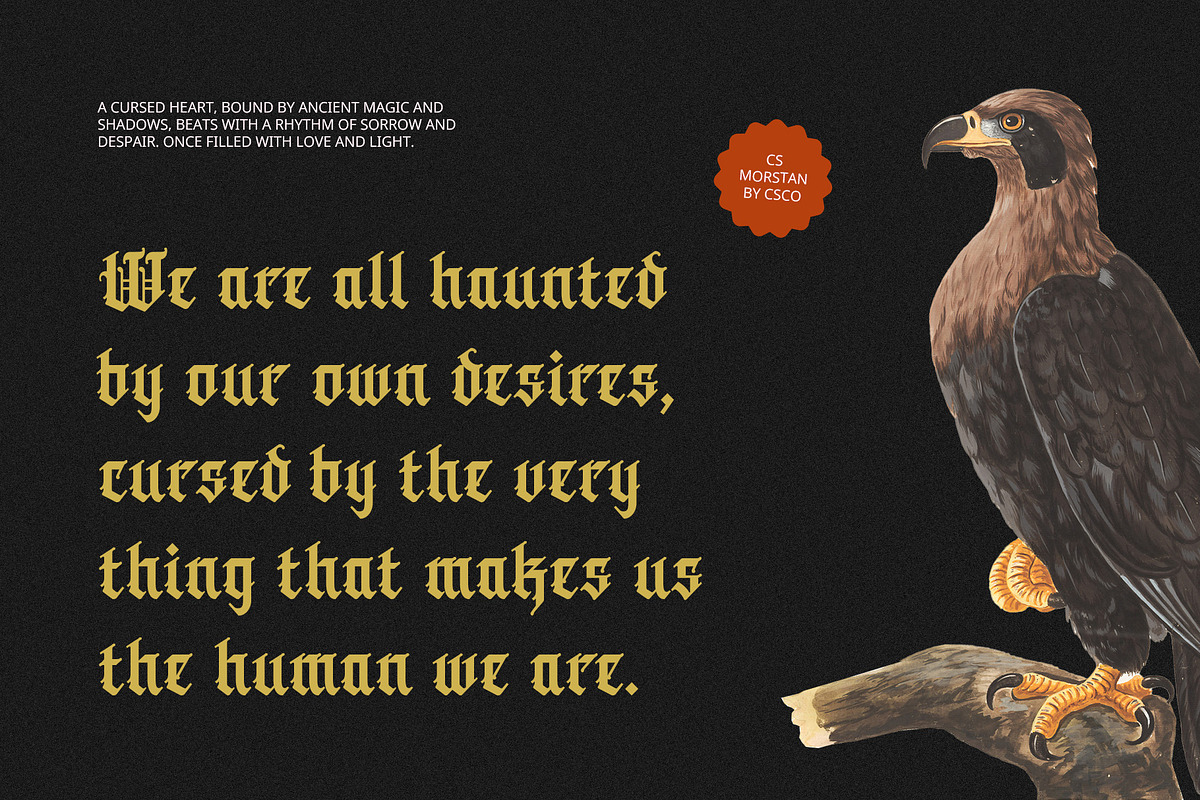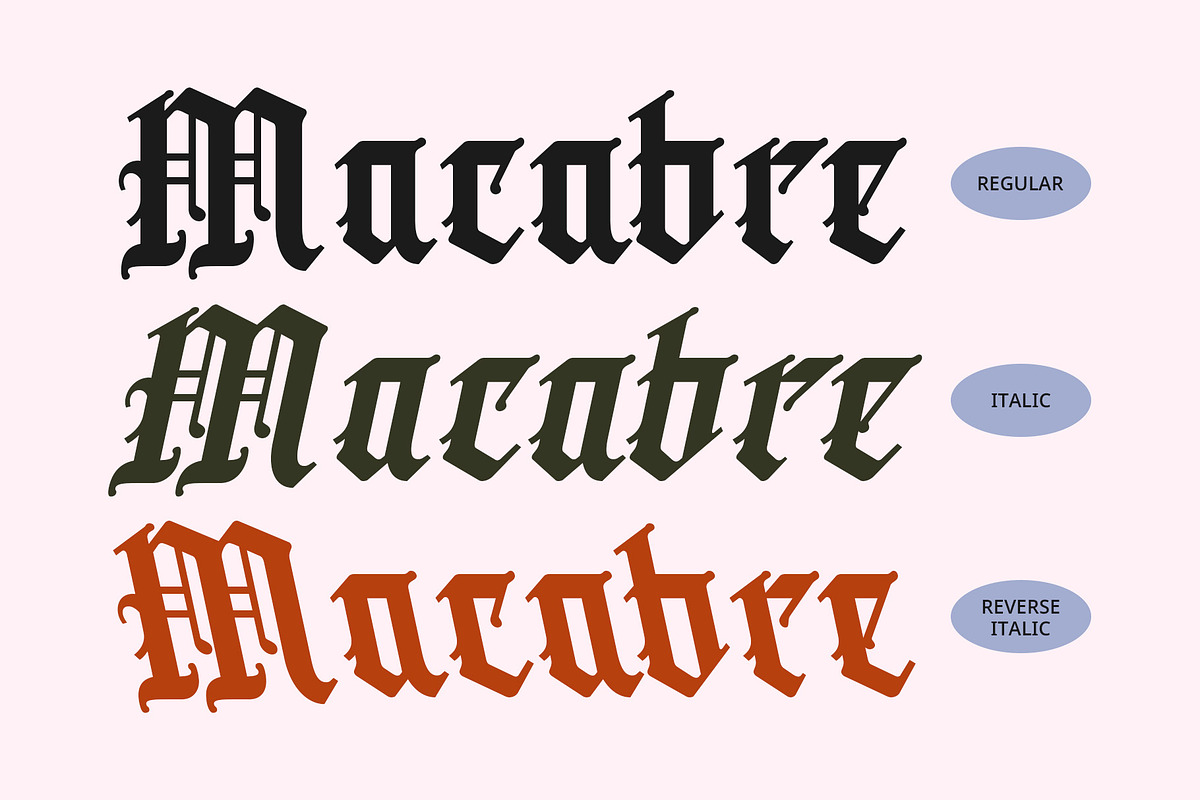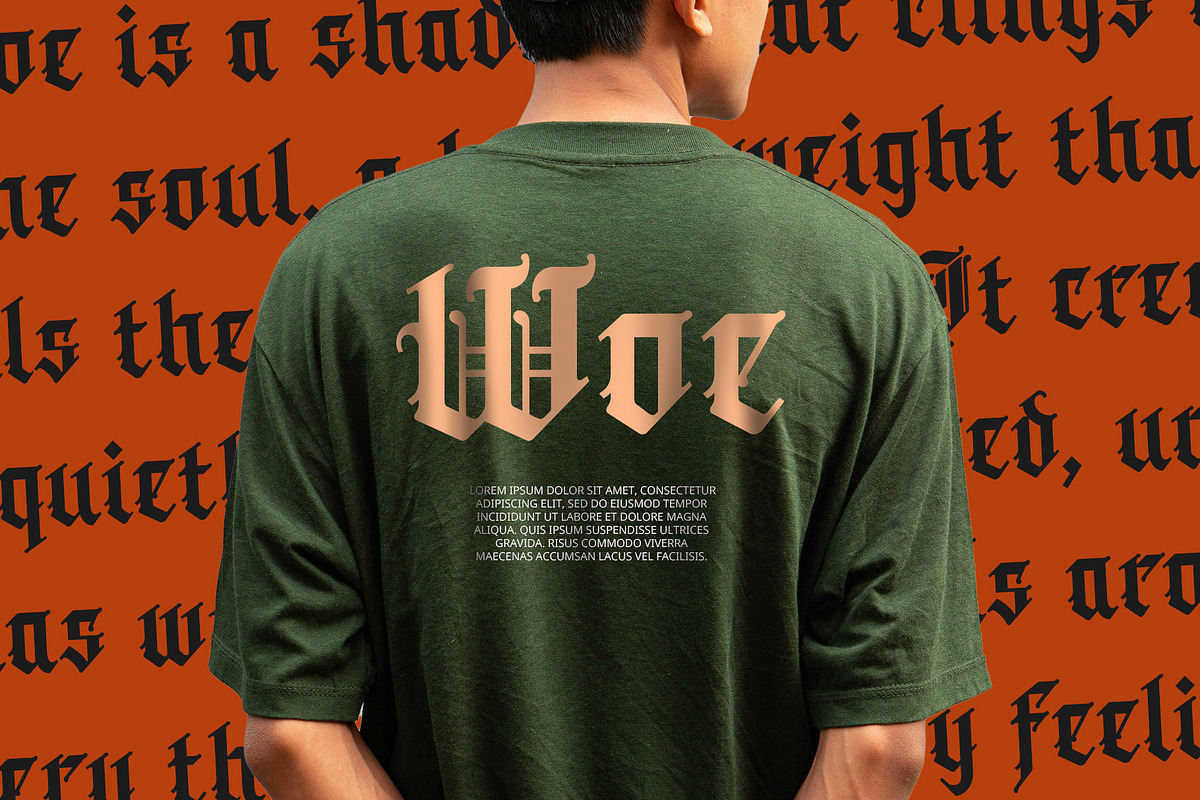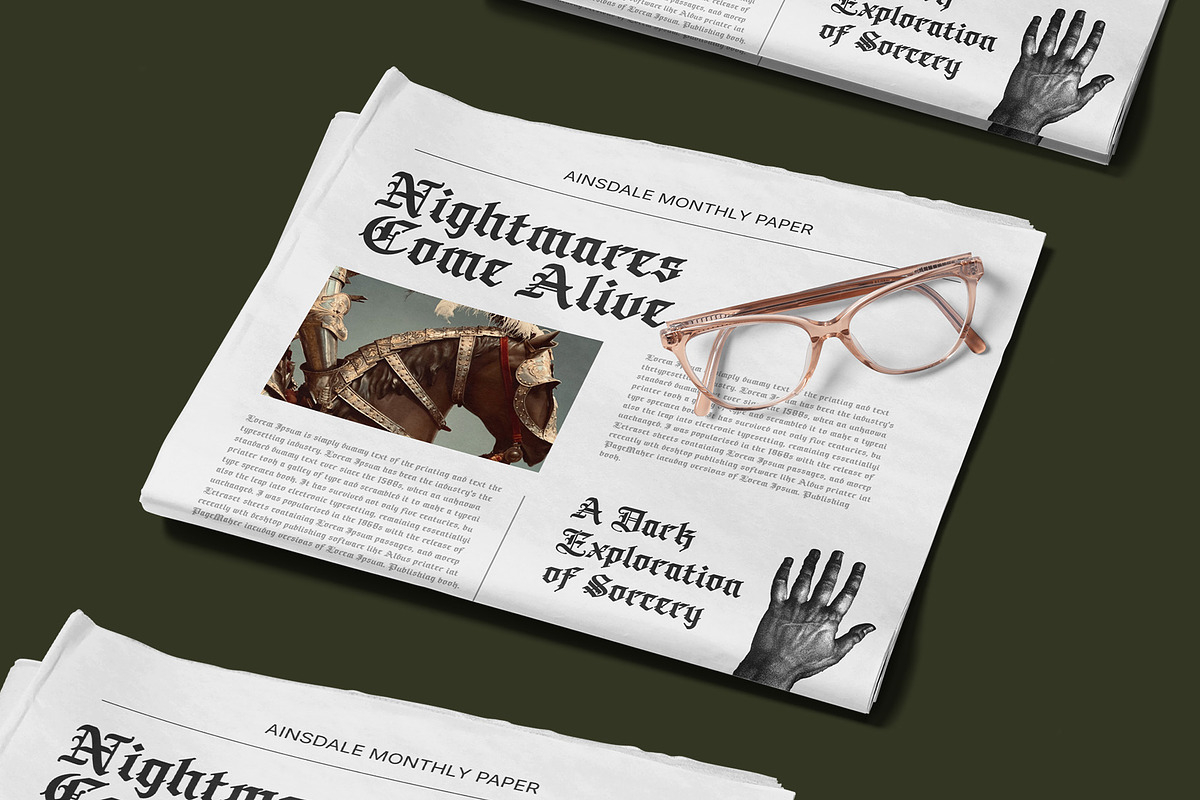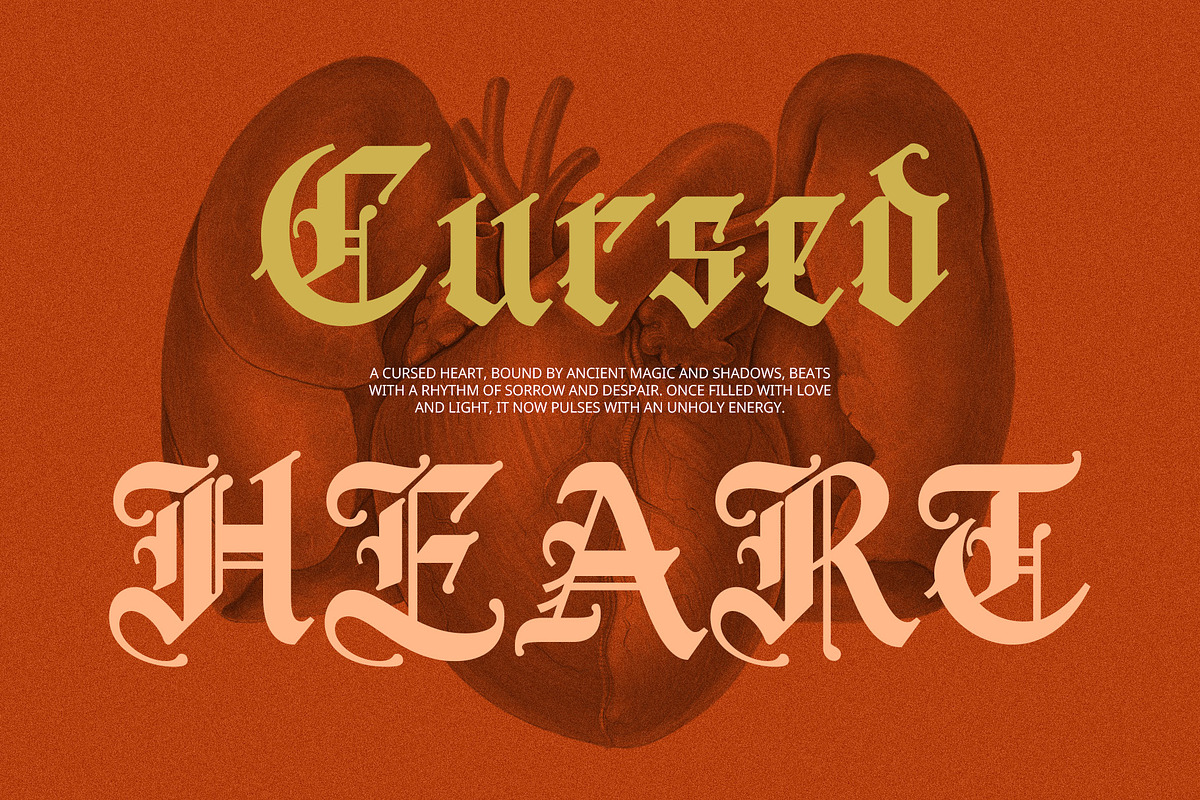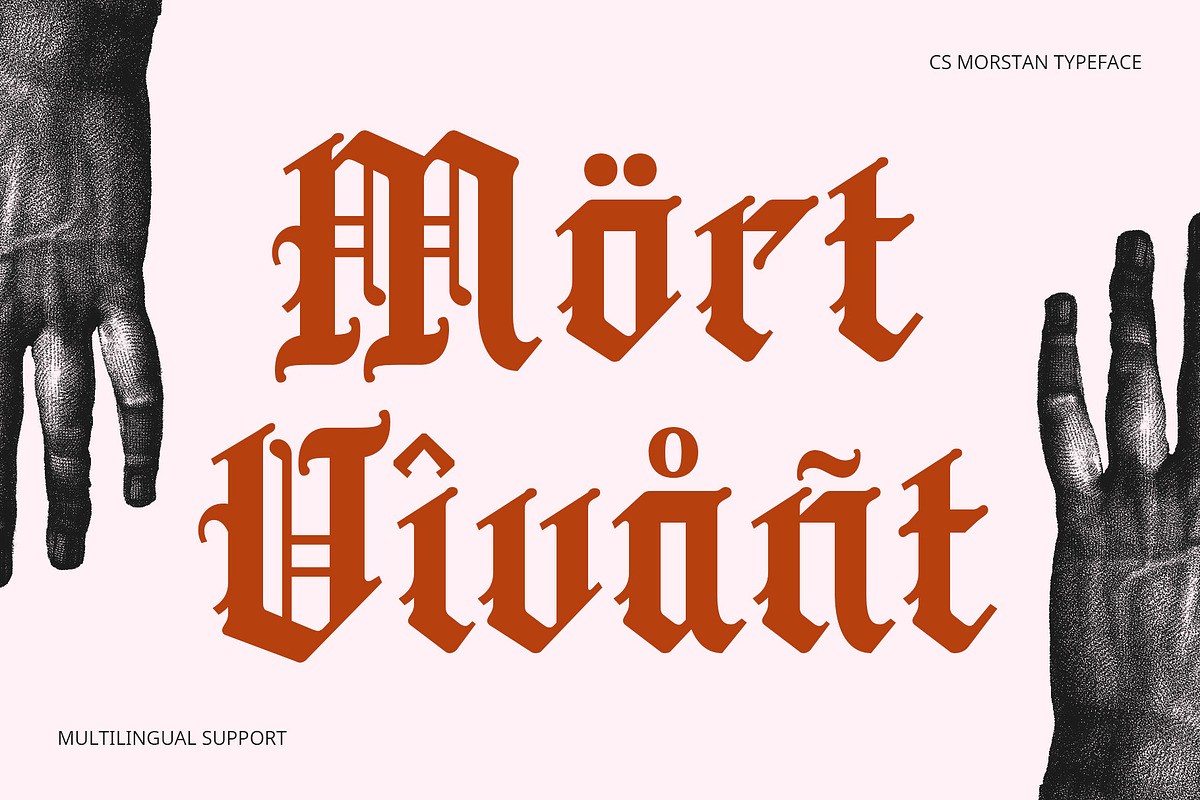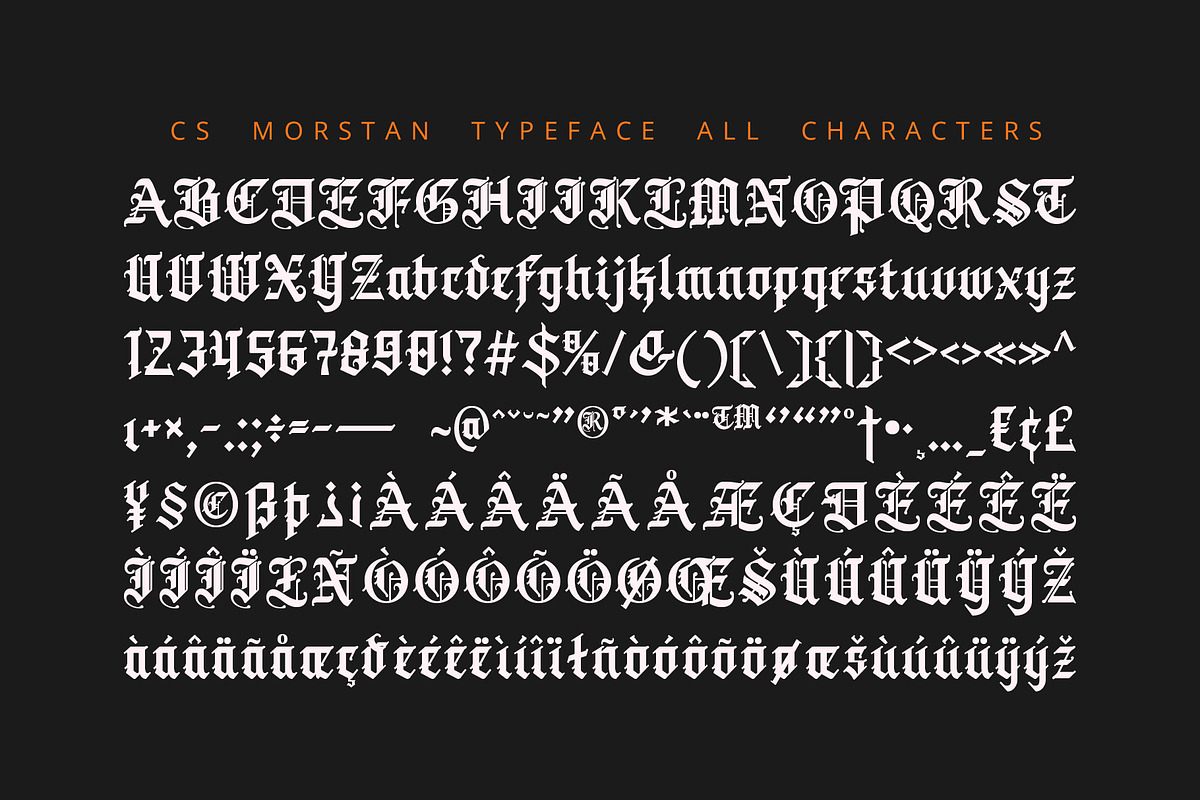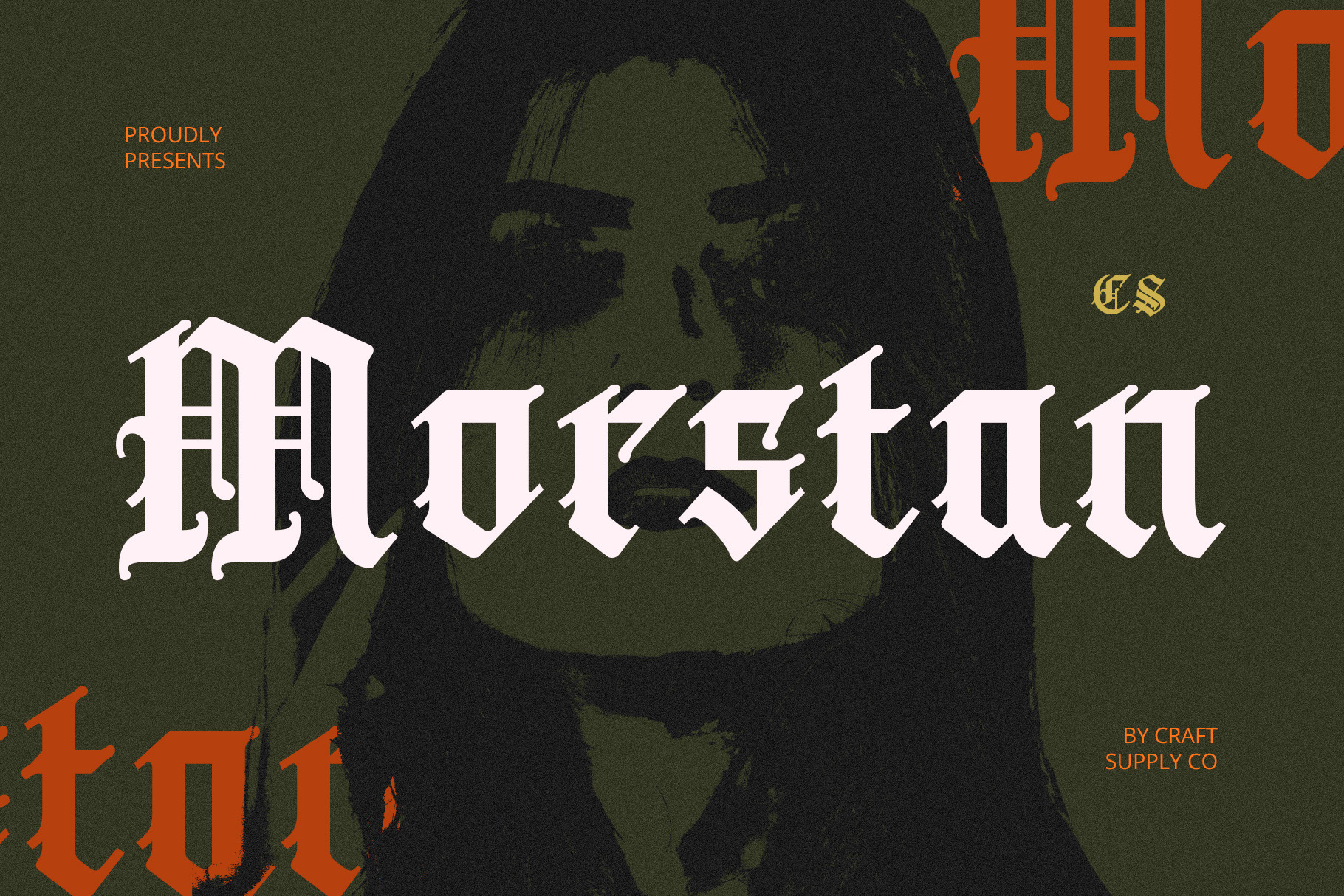
CS Morstan – Old English Font
CS Morstan – Old English Font: A Majestic Touch of History
Ornate Old English Design CS Morstan is a display font inspired by medieval calligraphy, featuring a striking blend of thick and thin strokes that create a dramatic contrast, reminiscent of traditional handwritten manuscripts. Its intricate letterforms, adorned with ornamental details, evoke a sense of history, formality, and regal elegance. This font captures the essence of Old English style, making it perfect for designs that require a distinguished, timeless, and prestigious appearance.
Ideal for Classical and Regal Projects Perfect for high-end invitations, certificates, and branding, CS Morstan is designed to bring a sense of timeless elegance to any project. Whether you’re creating sophisticated stationery, formal documents, or luxury branding, this font conveys a deep connection to tradition and nobility. Its Old English style makes it ideal for projects that seek to evoke a classical or historical atmosphere, providing a prestigious look that is both captivating and memorable.
Timeless Elegance with a Historic Flair With its heavy serifs and intricate detailing, CS Morstan carries a weight of history and prestige that few other fonts can match. Its ornate flourishes add personality while maintaining a formal and refined structure. The Old English style imbues every project with an air of antiquity, making it perfect for designs that seek to evoke old-world charm and timeless beauty.
- CS Morstan Regular
- CS Morstan Italic
- CS Morstan Reverse Italic